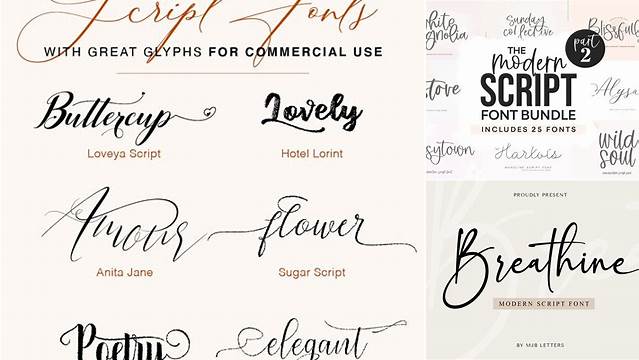
Free Script & Modern Fonts: Design Secrets Revealed
Free Script and Modern Fonts: Unleashing Your Design Creativity
Hey design enthusiasts! Ready to jazz up your projects? Finding the perfect font can be a game-changer, whether you're working on a sleek website, a cool poster, or a fancy invitation. Let's dive into the world of free script and modern fonts, exploring how they can boost your design game. We'll check out some awesome font combinations, how to use them effectively, and where to find these typographic treasures. This guide will help you create visually stunning designs that capture attention and leave a lasting impression. Get ready to transform your creative projects with the power of typography!
The Allure of Free Script Fonts
Script fonts, with their flowing, handwritten appearance, bring a touch of elegance, personality, and flair to any design. They're perfect for adding a personal touch and making your work stand out. But, what exactly makes script fonts so appealing? These fonts evoke a sense of artistry and craftsmanship, reminiscent of calligraphy and hand-lettering. They can instantly inject warmth and character into a project, making it feel more approachable and human. The graceful curves and connected letterforms of script fonts create a visual rhythm that is both engaging and pleasing to the eye. Think about wedding invitations, logos for artisanal brands, or even website headers where a touch of sophistication is needed. Script fonts excel at conveying messages of luxury, creativity, and individuality. Finding free script fonts that fit your style is like discovering hidden gems in the design world. You'll be amazed at the variety available, from delicate and feminine styles to bold and modern interpretations. Remember to choose a script font that complements your overall design vision. If you are trying to convey a message about classic elegance, a traditional script with elegant swashes and flourishes may be the perfect choice. For a more contemporary look, you can go with a cleaner, more simplified script font that still retains a handwritten feel. Consider the context, too – is the script font being used for body text, headings, or just for accents? Script fonts, when used with care, can elevate your designs and make them truly memorable. They are a very useful tool to have. It's important to know how to use it.
When selecting a script font, consider legibility. While some script fonts are highly decorative, others are designed with clarity in mind. If the text needs to be easily readable at a smaller size, opt for a script font with clear letterforms and ample spacing. The use of script fonts with modern fonts is a great option. Also, think about the mood and tone you want to create. A bouncy, playful script font might be great for a children's event, while a more refined script would be best for a formal invitation. There are tons of free script fonts out there, so the key is to experiment and find options that resonate with your personal style and the project's goals. Play with font pairings! Try combining script fonts with sans-serif or serif fonts to add contrast and balance. Using a script font for a headline and a clean sans-serif font for the body text can create a visually appealing contrast. This can make your designs more dynamic and easier to read. Be creative and have fun! The possibilities are endless, and the right script font can transform your designs from ordinary to extraordinary. Remember that the best font is the one that best conveys your message and meets the aesthetic needs of your project. Don't be afraid to try out different fonts and combinations until you get it right. The beauty of free fonts is that you can experiment with tons of them without spending a dime.
Exploring the World of Modern Fonts
Modern fonts embody clean lines, geometric shapes, and a minimalist aesthetic, and they are all about a contemporary and stylish look. They are perfect for designs that require a sleek, sophisticated, and forward-thinking vibe. What exactly defines modern fonts, and why are they so popular? They often feature a high degree of legibility, making them ideal for both headlines and body text. Modern fonts are characterized by their simplicity and precision. They often eliminate unnecessary flourishes and embrace geometric shapes. They can be a perfect match for a modern-style script font. This gives them a distinctly clean and uncluttered feel, which resonates with today's design trends. Modern fonts can be used in many areas: websites, graphic design, branding, and more. The best modern fonts are versatile and adaptable, allowing them to seamlessly integrate with a wide range of design styles and purposes. Using a modern font means communicating clarity, professionalism, and a cutting-edge sensibility. You will have great results. Finding free modern fonts is a great starting point for any designer looking to stay on trend. There is a wide variety of options available, from minimalist sans-serifs to more experimental geometric designs. Modern fonts are a great way to reflect current design trends. They can provide a sleek and contemporary look for any project.
When picking a modern font, think about the tone you want to create. A clean, geometric font can look professional for corporate branding. On the other hand, a more bold and experimental font might be perfect for a creative design. Legibility is very important. Ensure your chosen font is easy to read, especially for body text. Try out different font pairings. Modern fonts usually pair well with a script font or even a classic serif font, giving you a contrasting visual balance. Make sure your chosen font supports the language and characters you need for your project. This will help ensure a smooth design process. Modern fonts can take your designs to a whole new level. It is a great tool to have for any kind of design. The key to using these fonts is understanding how they can enhance your work and how to make them align with your aesthetic goals. With the right modern font, your designs can reflect the latest trends and make a statement.
Combining Script and Modern Fonts: Best Practices
Combining script and modern fonts can create visually stunning and balanced designs. But how do you do it right? Here are some useful practices to help you create amazing designs. Pairing Script and Modern Fonts is an art that requires consideration for contrast, readability, and overall design harmony. The goal is to create a blend that complements your designs. Contrast: Pairing a delicate script font with a bold, geometric sans-serif modern font is a common and effective approach. This contrast adds visual interest and helps to highlight different elements of your design. For instance, a flowing script font can be used for the heading while a clean, modern font can be used for the body text. This combination gives your design a very nice aesthetic. Readability: Make sure your font choices are easy to read. While script fonts can add flair, they can be difficult to read at smaller sizes. Use script fonts sparingly for headlines or short phrases and choose modern fonts for body text. This ensures your content is accessible and engaging. This ensures that your designs are accessible and easy to understand for your audience. Balance: Create a balance in your design. If the script font is very ornate, balance it with a simple, clean modern font. The key is to consider the weight, style, and overall impression of each font and how they will work together. A great font pairing will create a cohesive design that captures attention. Font Combinations: Experiment with different font combinations. There are endless options. For example, you can use a classic script with a bold, geometric sans-serif. Or you can use a delicate, modern serif with a clean, minimalist sans-serif font. Try different combinations and see what works best for your design. Remember that it is essential to test your font combinations in different contexts, such as headlines, body text, and calls to action. This will help ensure that your fonts are clear, readable, and visually appealing in your final design. By following these tips, you can create striking designs that successfully blend the elegance of script fonts with the clean aesthetic of modern fonts.
Key Considerations for Font Usage
Let's talk about the key aspects of font usage! It's important to be aware of the best practices and legal considerations. It's essential to make informed decisions that will enhance your designs. Choosing and using fonts, whether free script or modern fonts, involves key considerations to ensure the best results. Licensing: Always check the licensing terms for each font. While many free fonts are available for personal and commercial use, some may have restrictions. Make sure you understand the licensing terms before you use them. Check the licensing information, such as restrictions on commercial use. Readability and Legibility: Make sure that your chosen fonts are readable and legible. This is very important. Legibility is essential. Consider the context and size. The font should be easy to read in your design. For example, a font that looks great in large headings might be very difficult to read in the body text. Font Pairing: Think about font pairing. Combining a script font with a modern font can create a beautiful visual. However, always consider the overall design. Test out different pairings to make sure they complement each other. Balance is very important. For instance, a delicate script pairs well with a bold sans-serif font. Consistency: Maintain consistency in your designs. Use the same fonts throughout your project to create a coherent visual identity. Using the same font family throughout your project ensures that your design remains consistent and professional. Context and Purpose: Make sure the chosen font fits the context and purpose of your design. A formal invitation will need a different font compared to a website for children. Think about the audience. Consider your target audience when selecting a font. A font that appeals to one audience may not be the best choice for another. By paying attention to these factors, you can confidently select and use fonts to create attractive and effective designs that resonate with your audience. These tips will help you boost your design projects.
Conclusion: Unleash Your Creative Potential with Free Fonts
So, you are ready to start your design adventure! Free script and modern fonts provide you with a wide range of possibilities, enabling you to create designs that are both beautiful and effective. As we've seen, the fusion of script and modern fonts opens up exciting avenues for design. The elegant charm of script fonts, with their flowing lines and handwritten feel, blends beautifully with the clean lines and versatile nature of modern fonts. Use these fonts in your projects! They are very useful tools to have! The best part is that there are a lot of free fonts available to download. Using these fonts will allow you to customize your designs. The best way to discover new font combinations is to experiment. Keep an eye on the licensing terms, keep readability in mind, and you will find that these fonts will help you make your designs look amazing. Embrace the power of typography and start creating designs that truly stand out. Happy designing!